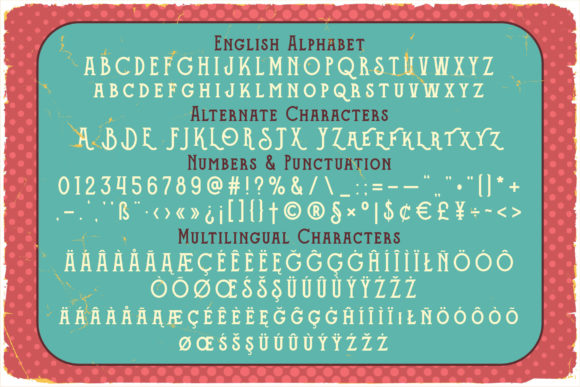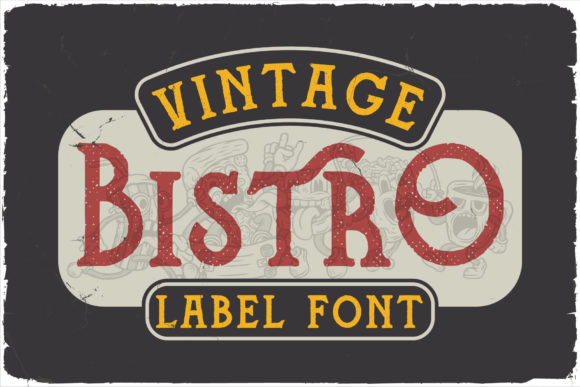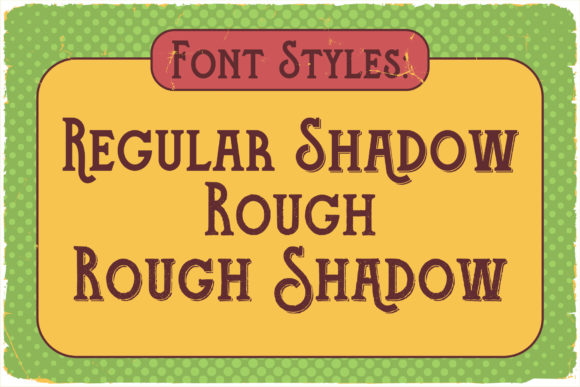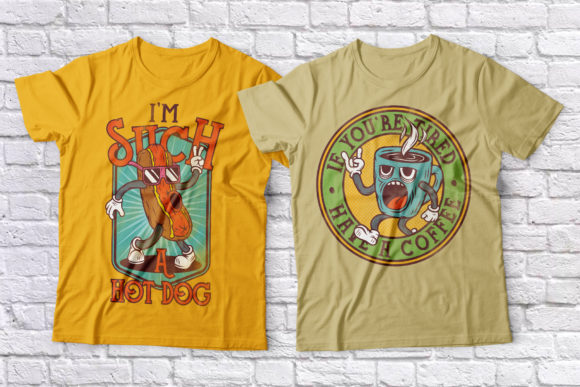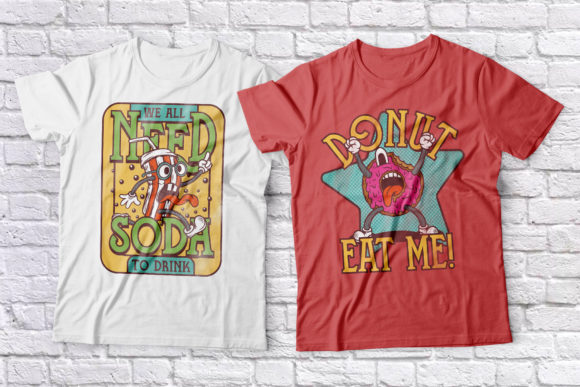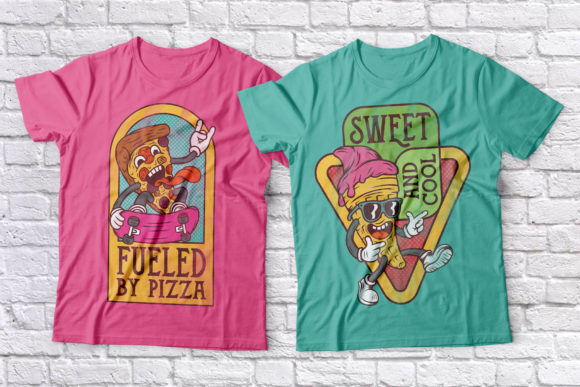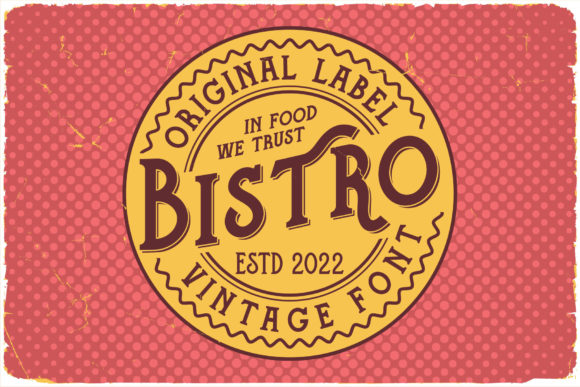
Introducing Bistro: The Perfect Serif Font for Vintage-Inspired Designs
I’ll never forget the struggle I faced while working on a vintage-themed poster project. My client wanted a font that would transport their audience back to the 1950s, but I was stuck with a bland, generic sans-serif font. That’s when I stumbled upon Bistro, an original label font that instantly elevated my design game. In this article, I’ll share my experience with Bistro, its features, and how to make the most of it in various design platforms.
An Honest Review of Bistro
What I Love About Bistro ✨
- 💯 Unique character: Bistro’s serif design gives it a distinctive personality that’s perfect for vintage-inspired designs.
- ✅ Versatility: This font works beautifully on posters, T-shirts, labels, logos, and more.
- 🎨 Highly customizable: With OpenType features and glyphs, you can experiment with different styles to match your brand’s tone.
While Bistro is an excellent font, there are a few things to keep in mind:
- 🤔 Limited use in very small sizes: Bistro’s serifs can get lost in extremely small font sizes, so it’s best used in larger sizes (from 12-14 points onwards).
- ⚠️ Some letter combinations may require manual kerning: As with any font, you might need to adjust the kerning for certain letter combinations to ensure optimal readability.
The Backstory Behind Bistro
Bistro was designed with the intention of capturing the essence of vintage labels and posters. Inspired by classic typography from the early 20th century, Bistro’s creator aimed to craft a font that would evoke a sense of nostalgia and timelessness. The result is a font that’s both elegant and approachable, perfect for designers looking to add a touch of sophistication to their work.
Q: What type of designs is Bistro best suited for?
A: Bistro excels in vintage-inspired designs, such as posters, T-shirts, labels, logos, and more.
Q: Is Bistro a highly customizable font?
A: Yes, Bistro features OpenType features, glyphs, and stylistic alternates, making it highly customizable.